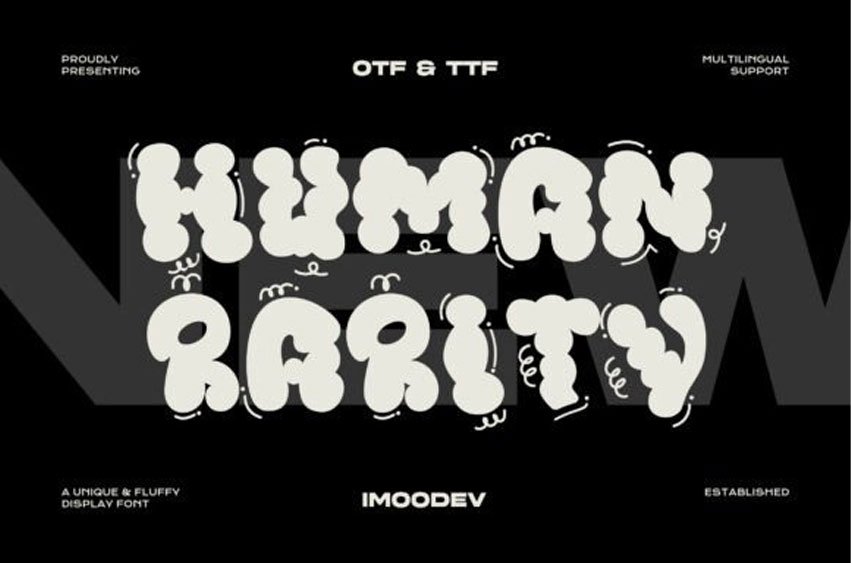
Human Rarity Font is a cloud bubble font, a soft and delightful typeface with wavy forms, which looks somewhat like handwritten letters. Inspired by the beauty of clouds, this font combines artistic aesthetics with everyday functionality.
It is ideally suited for children’s books, cartoons, animations, children’s products, greeting cards, and casual branding, anything that conveys something soft and gentle. Additionally, this charming font is a fantastic choice for fashion-related designs, adding a trendy flair to clothing labels and promotional materials. Whether you’re creating eye-catching headlines or charming captions, Human Rarity will bring a sense of joy and comfort to your typography.